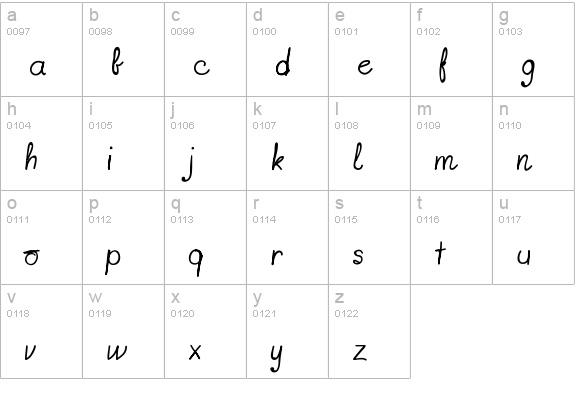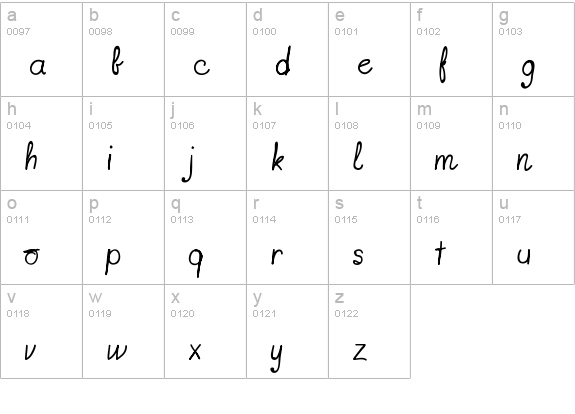
Introducing the exquisite FontsLab Gift Font, a stunning typeface that adds a touch of elegance to any project. This font is the perfect choice for invitations, branding, posters, and more. With its beautiful curves and stylish glyphs, FontsLab Gift Font brings a unique charm to your designs. The best part? FontsLab Gift Font is completely free to download at FontsMarket.com. Yes, you heard that right - this gorgeous font can be yours at no cost at all. So go ahead, elevate your designs with this beautiful typeface and let your creativity shine. Download FontsLab Gift Font today and create something truly special.